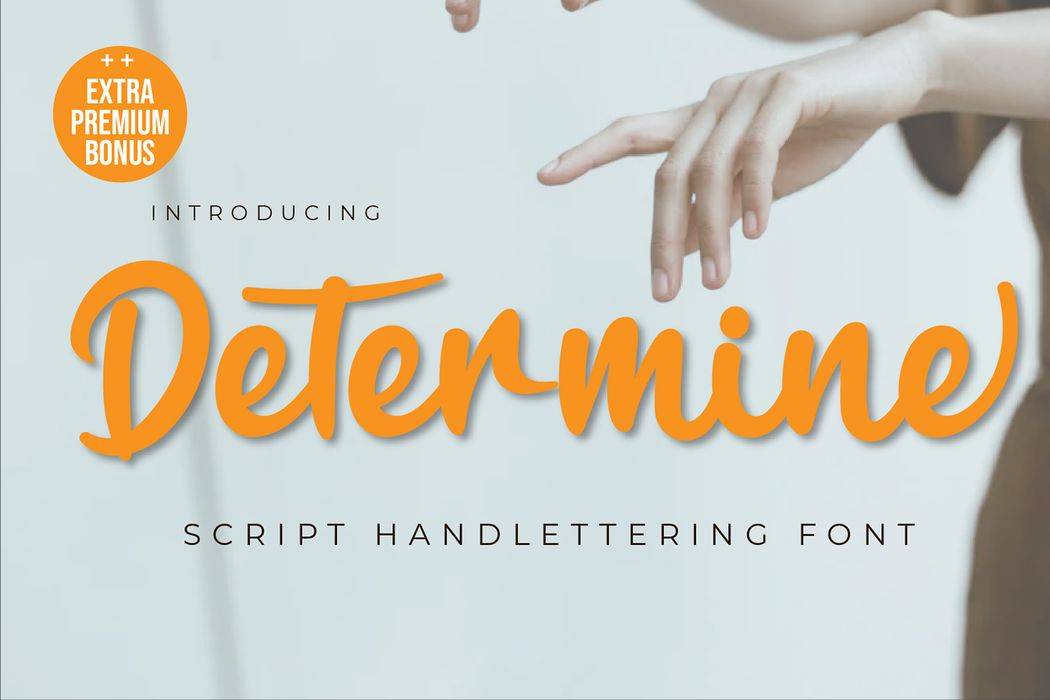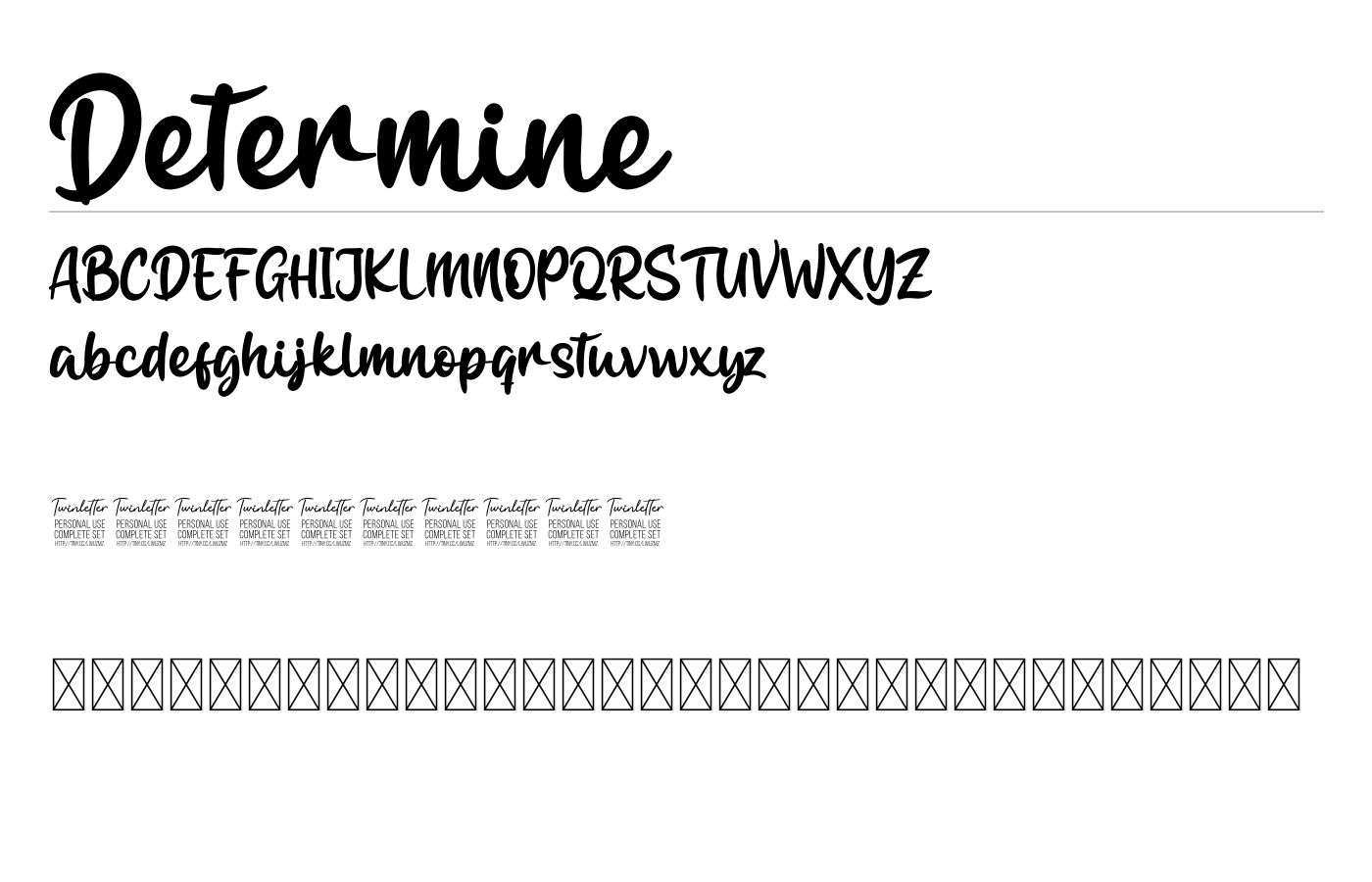
Determine Font is a lively and playful script typeface with a friendly, hand-drawn feel. Its smooth, rounded strokes and moderate contrast give it warmth and approachability, making it ideal for casual branding, invitations, and creative projects that seek a personal, informal touch. This font shines best in headlines and logos where its unique character and charm can truly stand out.
Determine Font
About Determine Font